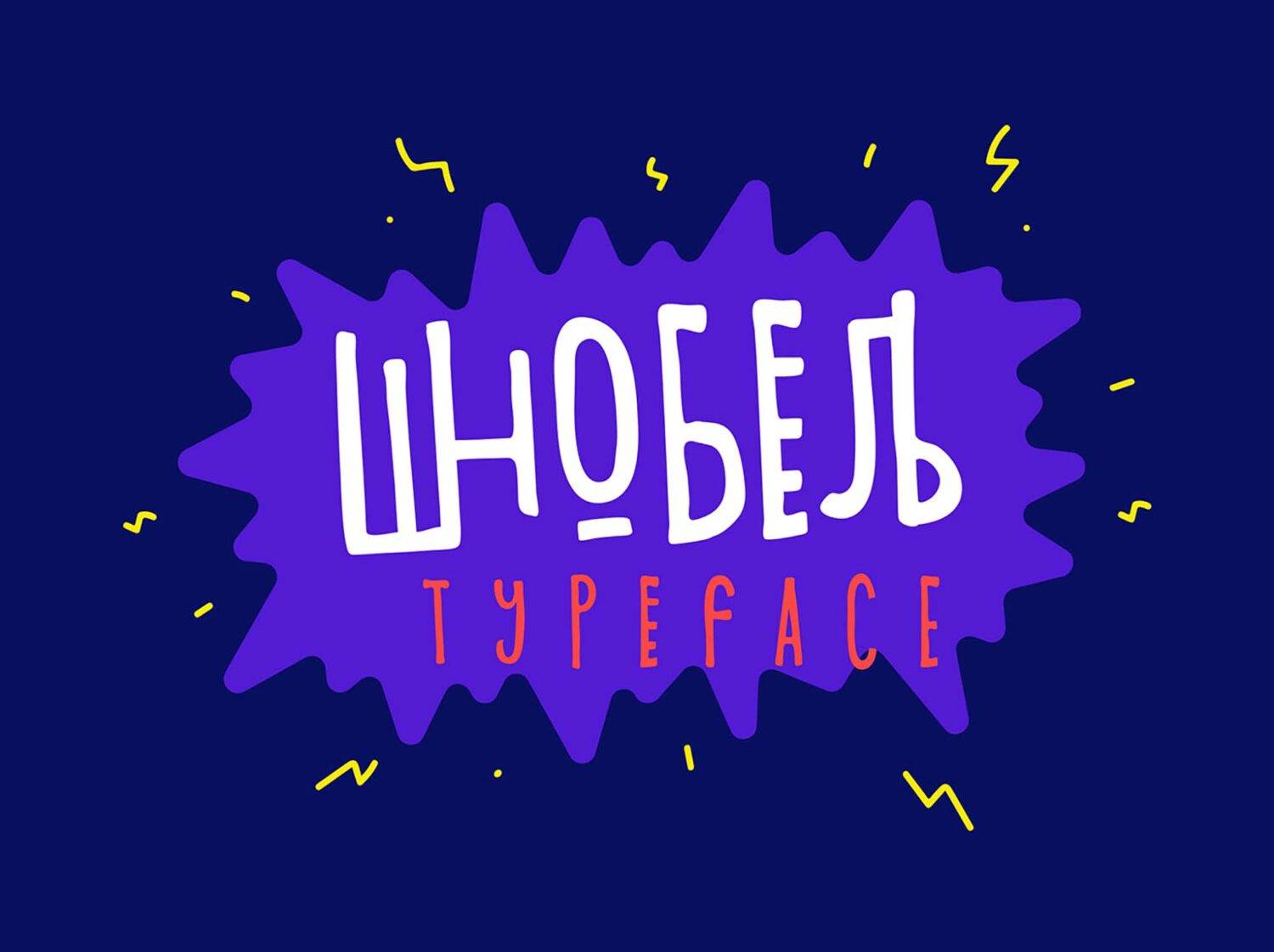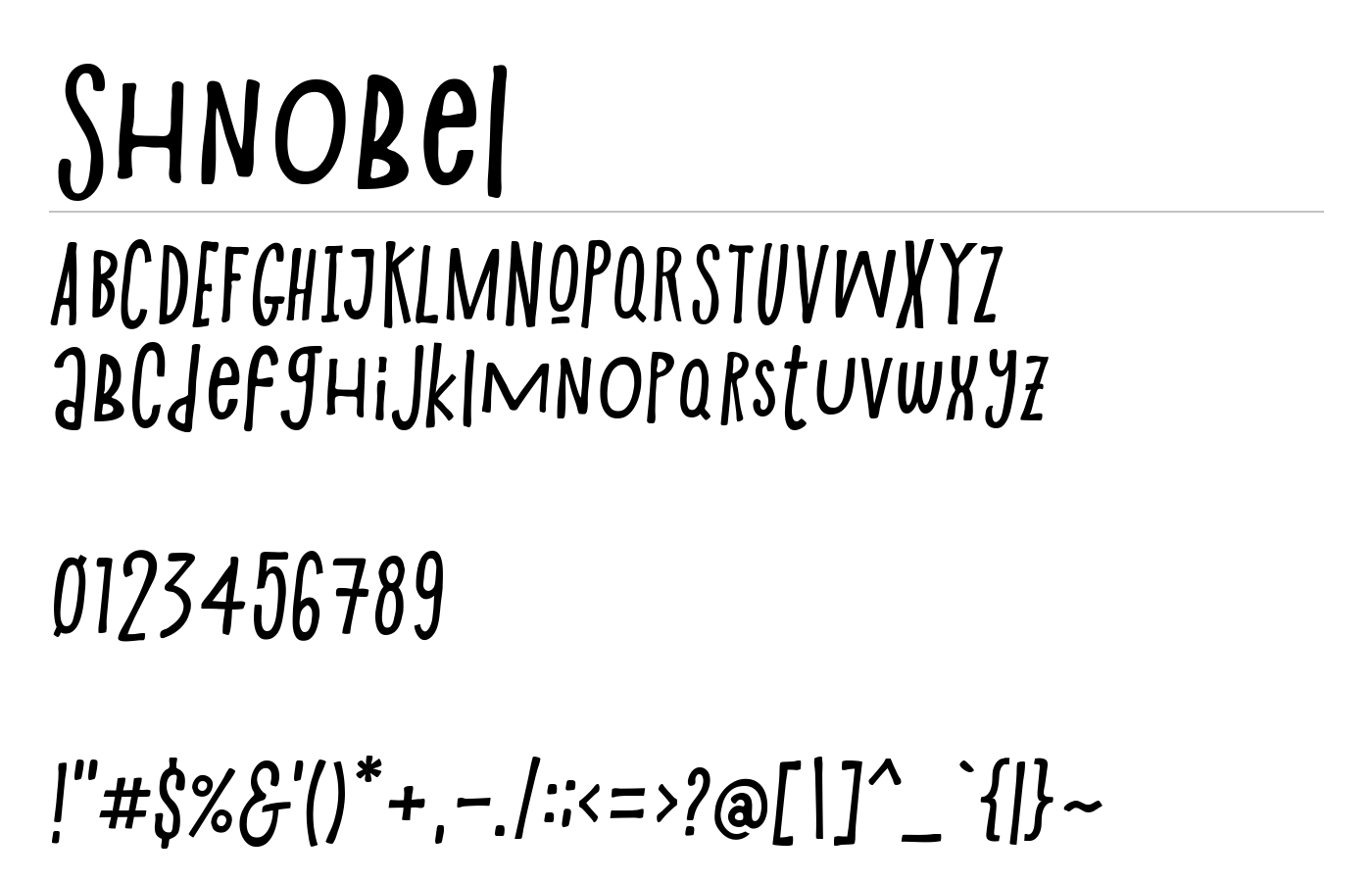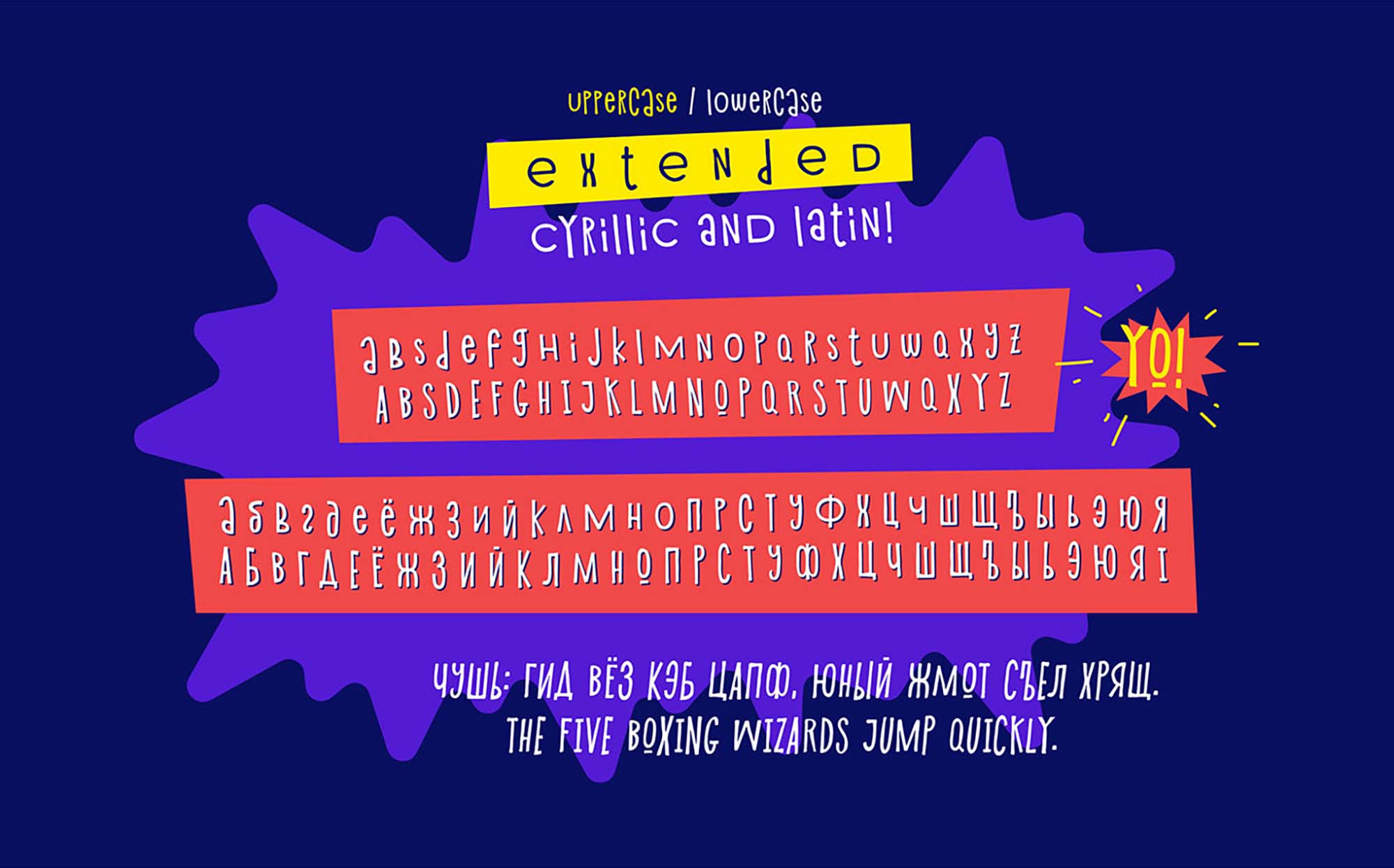
Shnobel
The Shnobel is a very emotional, mind-blowing, odd, wild, funny, extraordinary font! It can be used for every design which needs a fun and playful typeface. This free typeface was designed by talented TypefacePro. If you like it don’t forget to check out the full version.